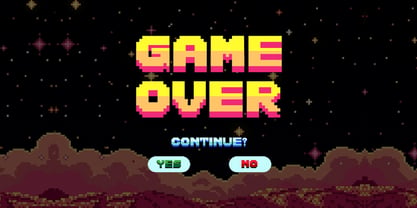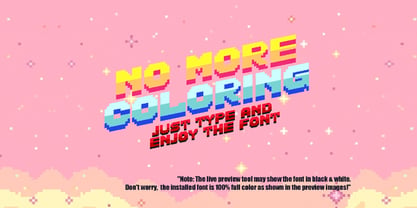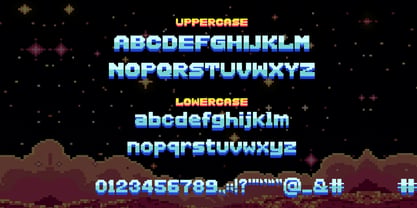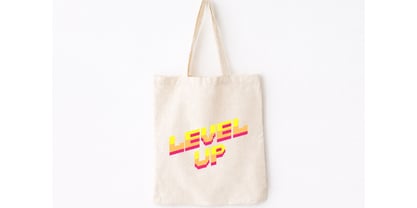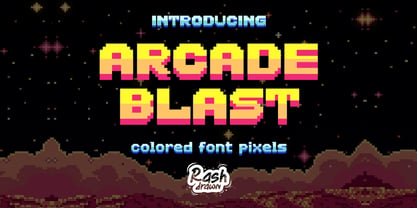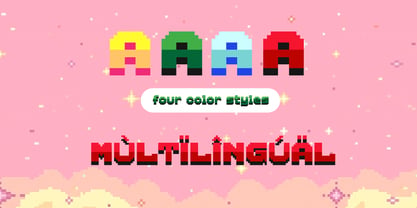
Arcade Blast
by Rashdrawn
The Arcade Blast Font Family was designed by Dadan Wildan and published by Rashdrawn. Arcade Blast contains 4 styles and family package options. More about this family
Arcade Blast – A Vibrant Retro Pixel Color Font Bring the nostalgic energy of 80s and 90s arcade machines to your modern designs with Arcade Blast. Perfect for game branding, streamers, YouTube thumbnails, streetwear apparel, and retro-themed event posters. Main Features: Instant Color: No more manual coloring! Just type and enjoy the pre-set retro gradients. Comprehensive Set: Uppercase, Lowercase, Numbers, Punctuation, and Symbols. Multilingual Support: Ready for international projects with accented characters. Technical Software Requirement: Note: This is a Color Font technology. It is compatible with: Adobe Illustrator (CC 2018 or newer) Adobe Photoshop (CC 2017 or newer) InDesign (CC 2019 or newer) Canva (supports color font uploads) MacOS (standard apps like Pages, Keynote)
Designers: Dadan Wildan
Foundry: Rashdrawn